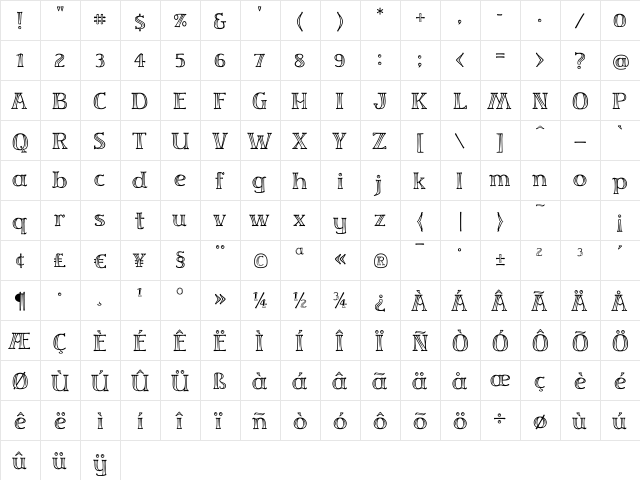
ZebraRegular Regular
Design Context for ZebraRegular Typeface
ZebraRegular is a composed and adaptable typeface that performs quietly and consistently across a wide range of design contexts.